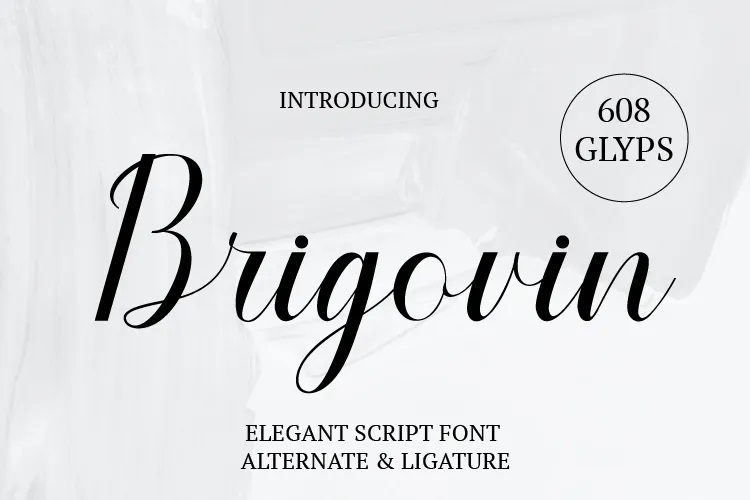
Brigovin Font
Brigovin is the elegant thats Handwritten Font. this is perfect choice for making eyes catching logos, brandings and inspirational quotes. every letters comes with unique and beautiful touch to make your design look alive! moreover, brigovin has an authentic look as if it was written with a brushpen or ink pen.
Brigovin Handwritten Script Font